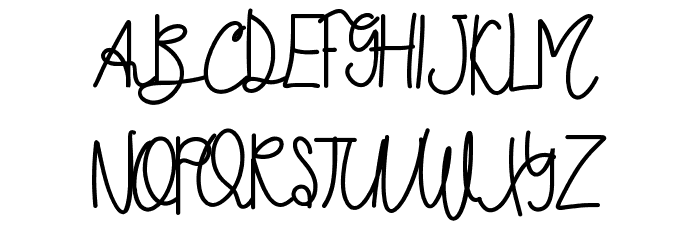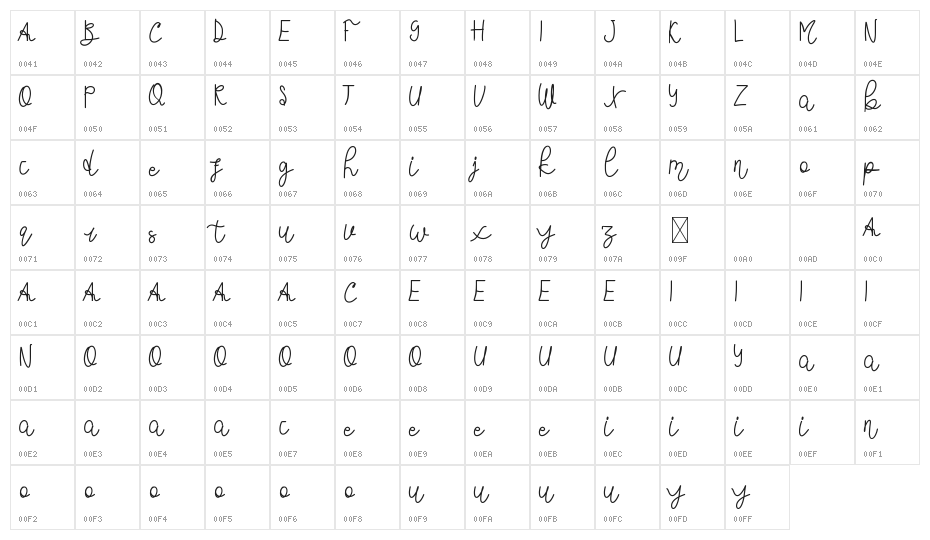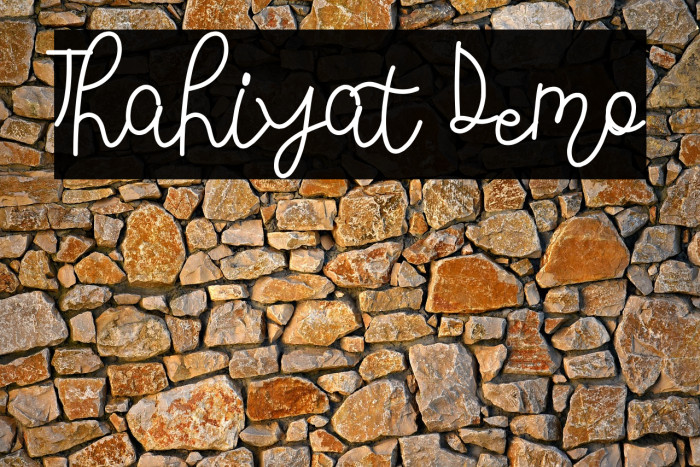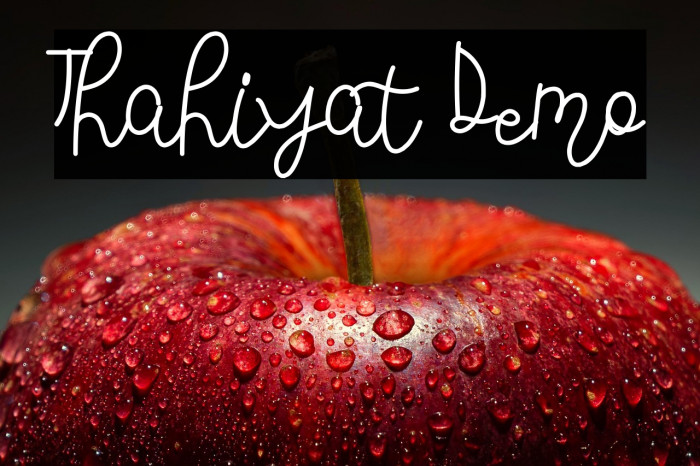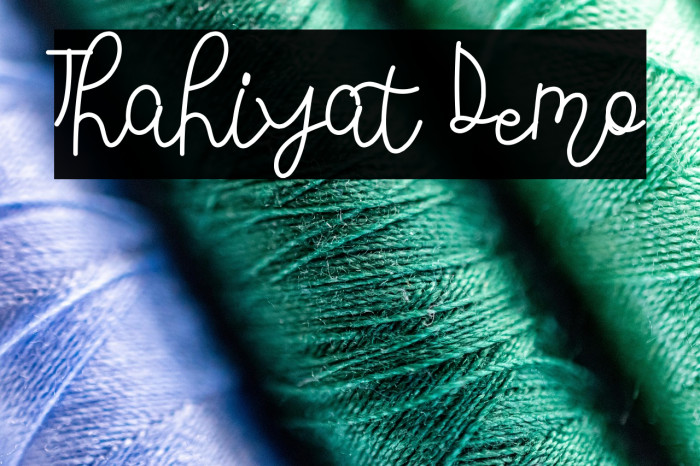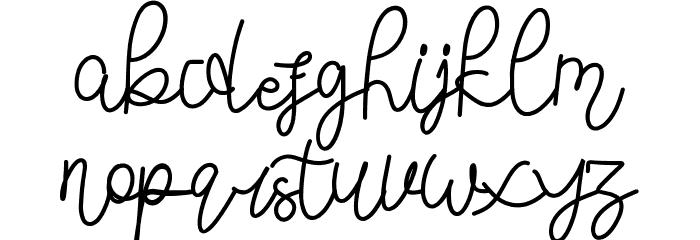
Thahiyat Demo Font
Thahiyat Demo Description
This font features a playful and whimsical handwritten style, characterized by its fluid and continuous strokes. The letters are interconnected, giving it a cursive appearance that mimics natural handwriting. The uppercase and lowercase letters maintain a consistent flow, while the special characters add a touch of creativity with their unique forms. The overall design is casual and friendly, making it suitable for projects that require a personal touch. The font's legibility is enhanced by its medium contrast, ensuring that each letter is distinct while maintaining the overall aesthetic.